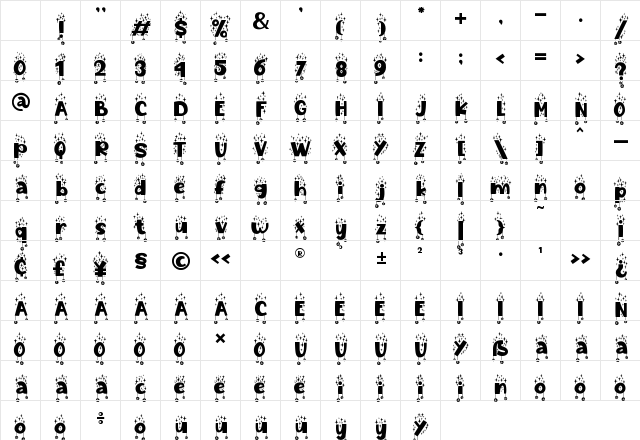
Frosty Faktur Ornament is built around its visual character rather than neutral utility - its distinctive forms are designed to make an impression at display sizes.
Font Pairing: Pair with a clean neutral sans-serif for body copy to let Frosty Faktur Ornament's character lead without overwhelming the composition.
Pro Tip: Use Frosty Faktur Ornament exclusively at display sizes - it was designed to be seen, not read at length. Let a neutral companion handle body copy.